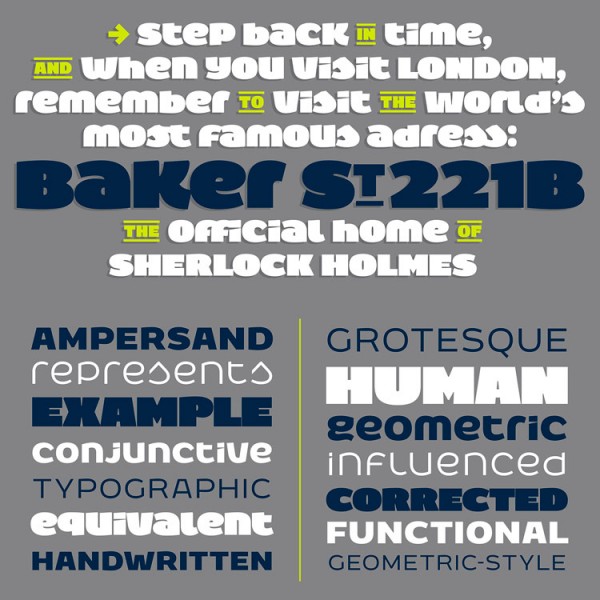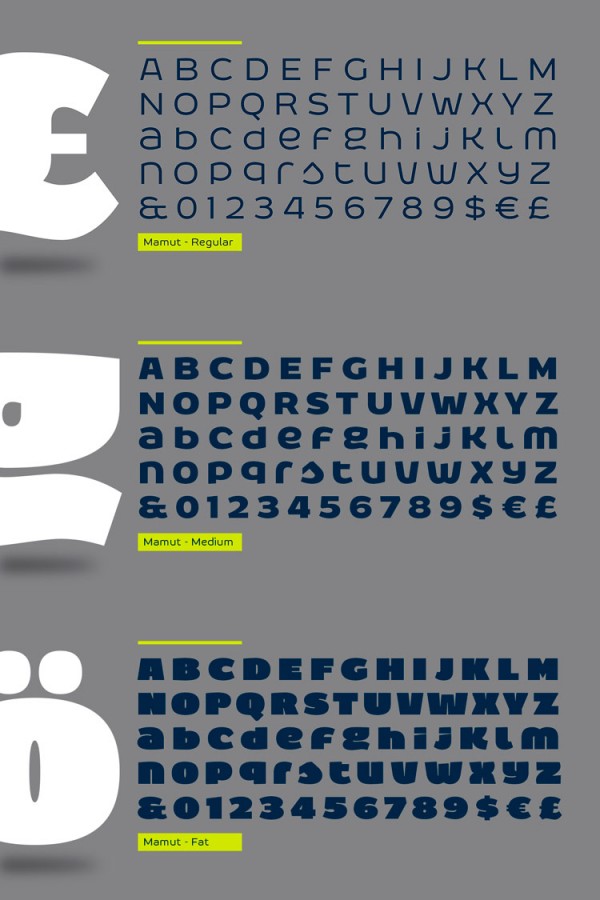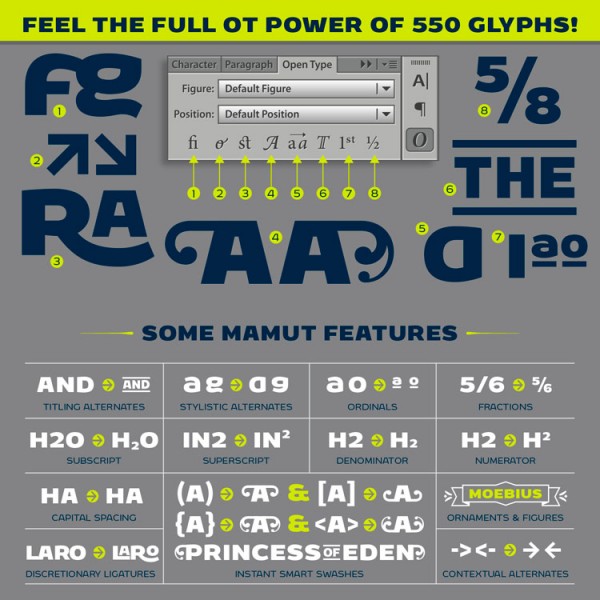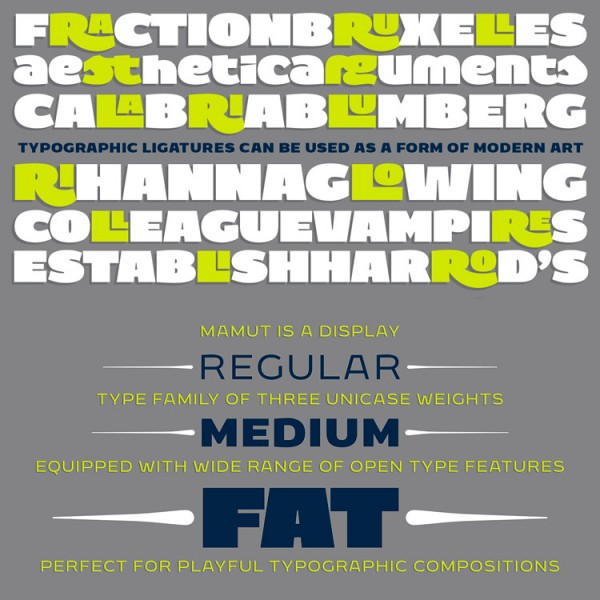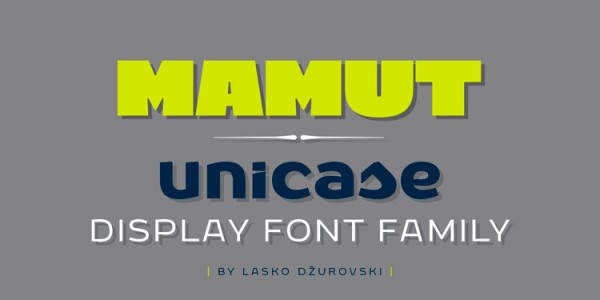
Mamut, a unicase display font family designed by Lasko Dzurovski.
If you are looking for a display font with a unique and playful design, Lasko Dzurovski’s Mamut font family might be something for you. This stylish display font family is equipped with three weights (Regular, Medium, and a massive Bold version). Mamut’s distinctive look is based on both elegance and playfulness. The family works best for logo designs, striking headlines, labels, posters, and a variety of typographic work.
Mamut includes lots of useful OpenType features such as titling alternates, stylistic alternates, ordinals, fractions, subscript, superscript, denominator, numerator, capital spacing, instant smart swashes, ornaments and figures, discretionary ligatures, and contextual alternates. As it should be, the family is available as both conventional desktop font as well as web font. You want to know more about this friendly typeface? Do not hesitate and follow the link below.